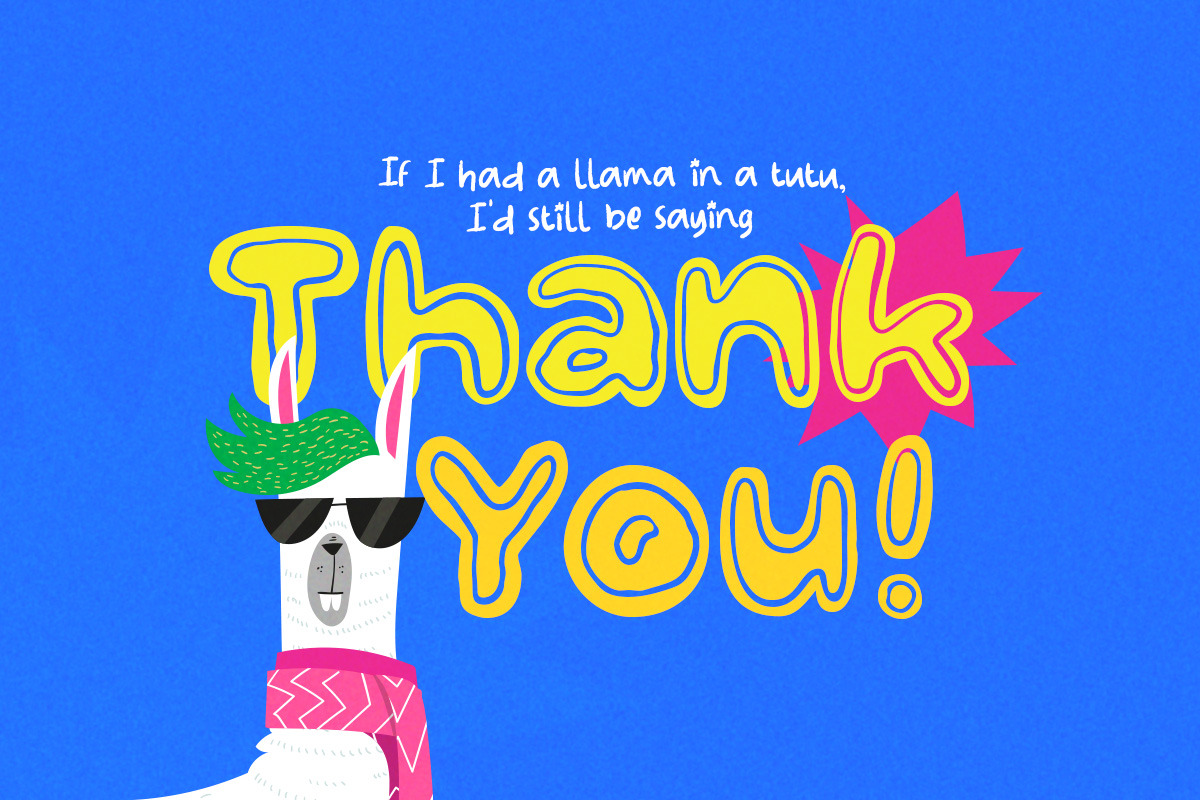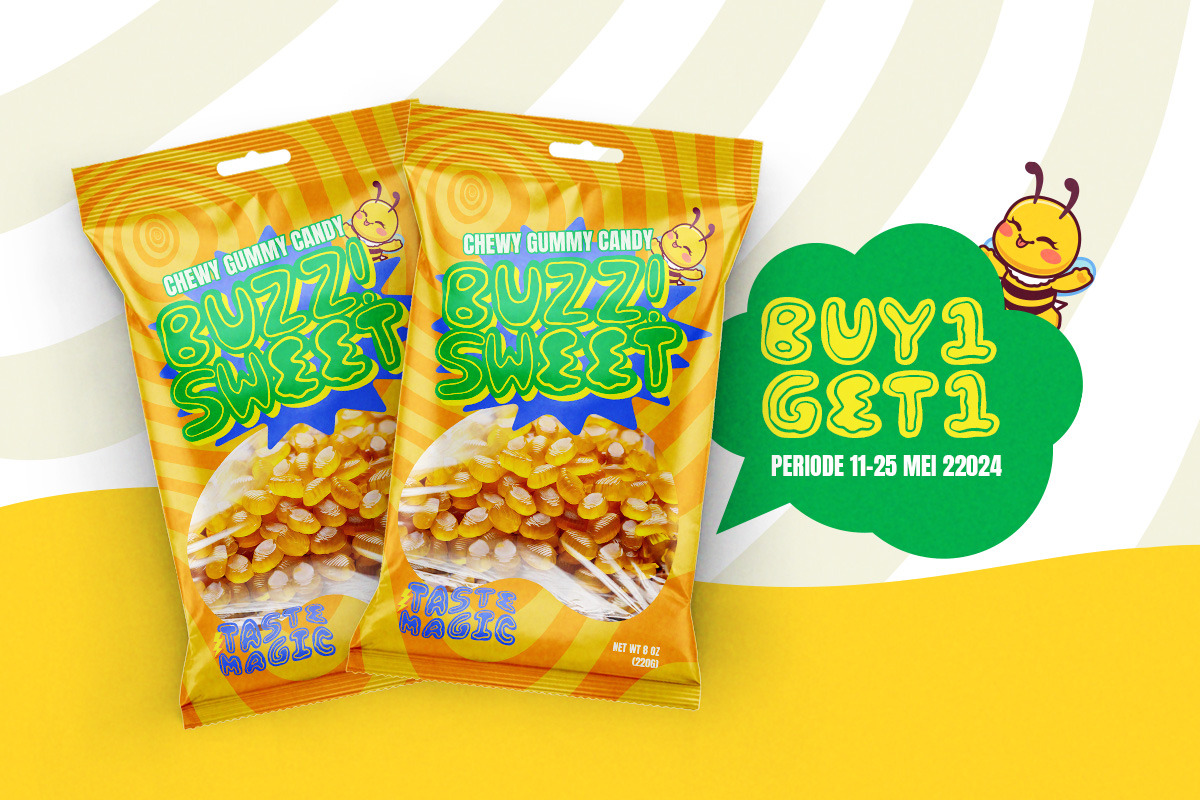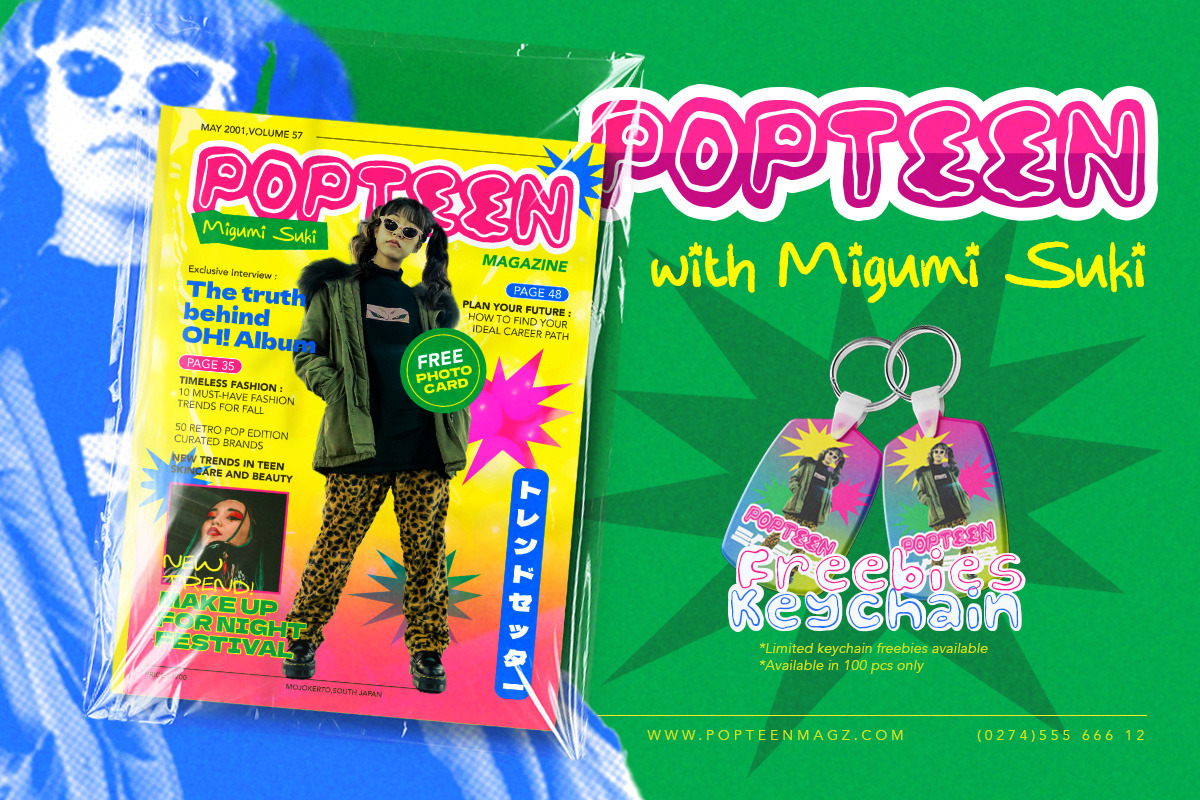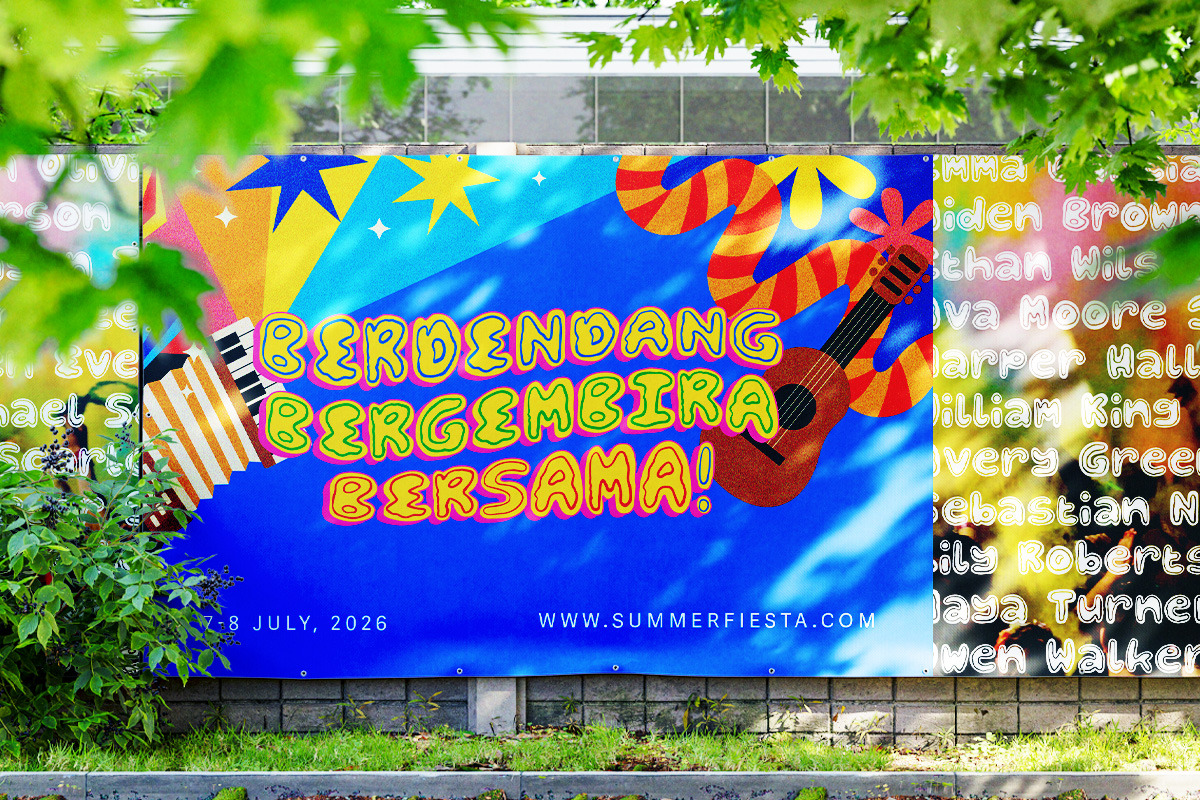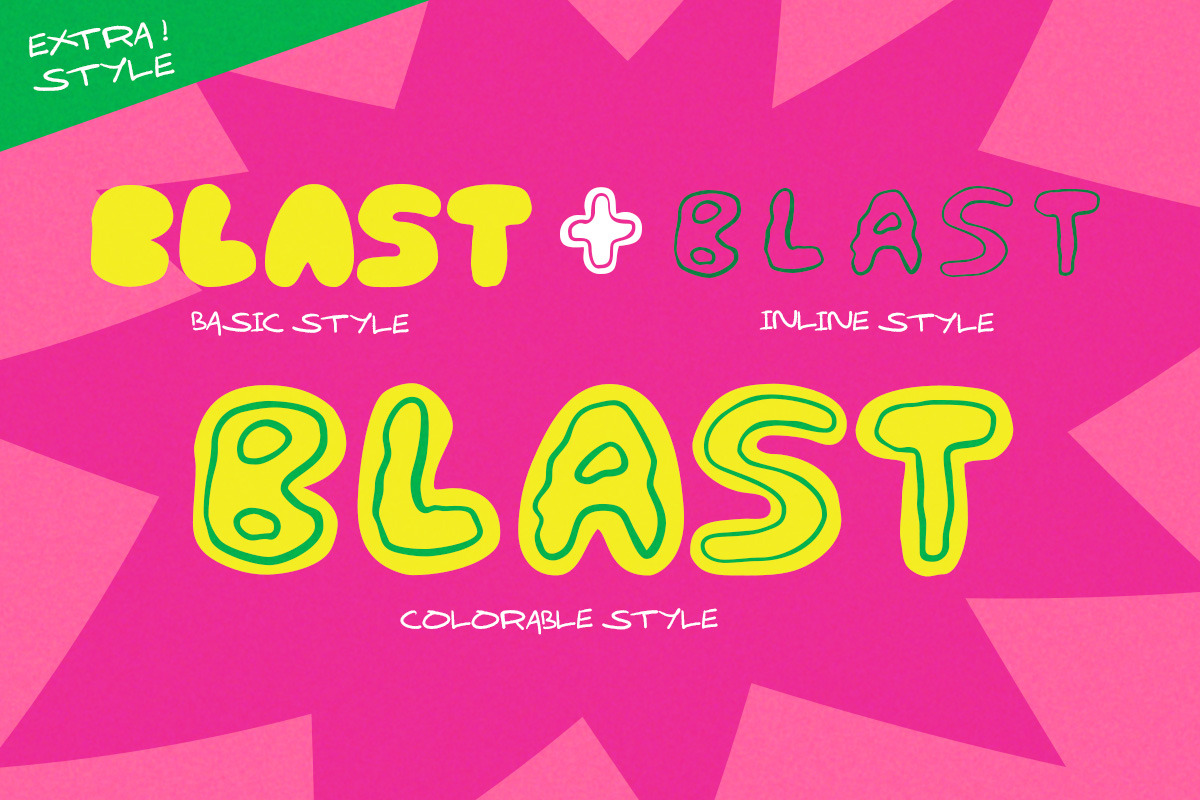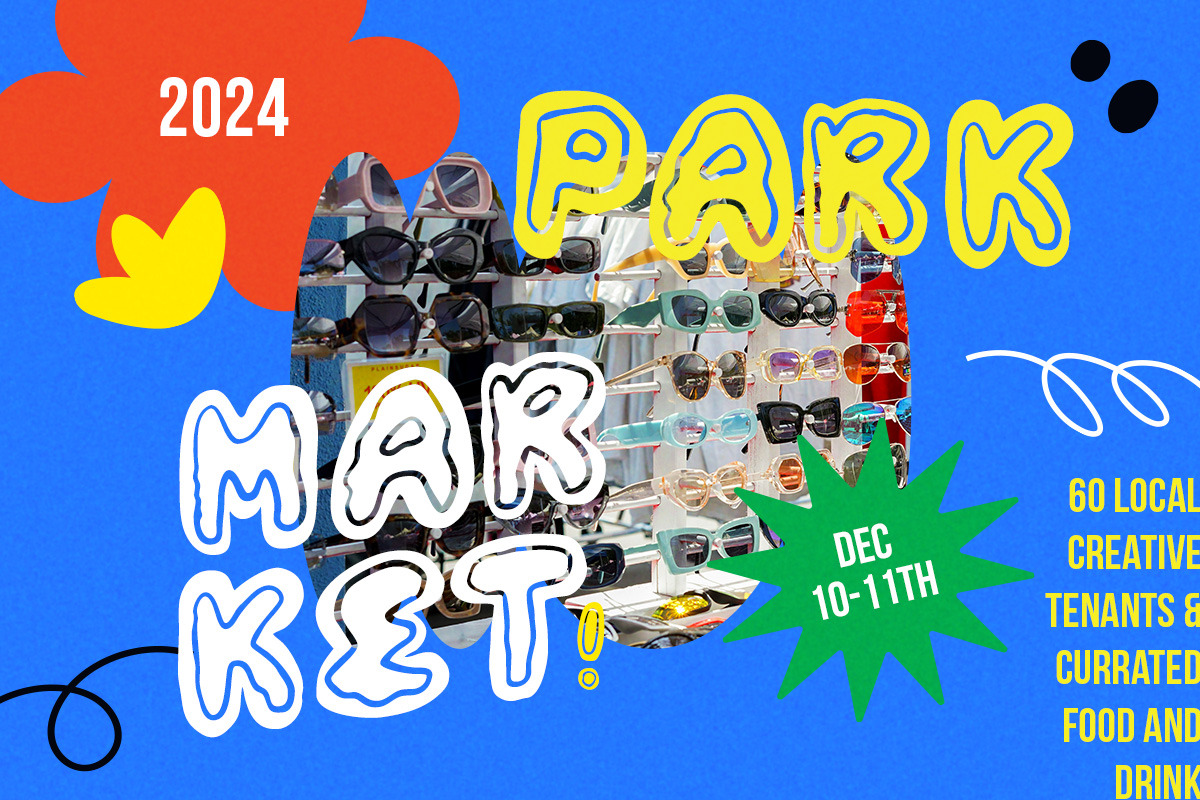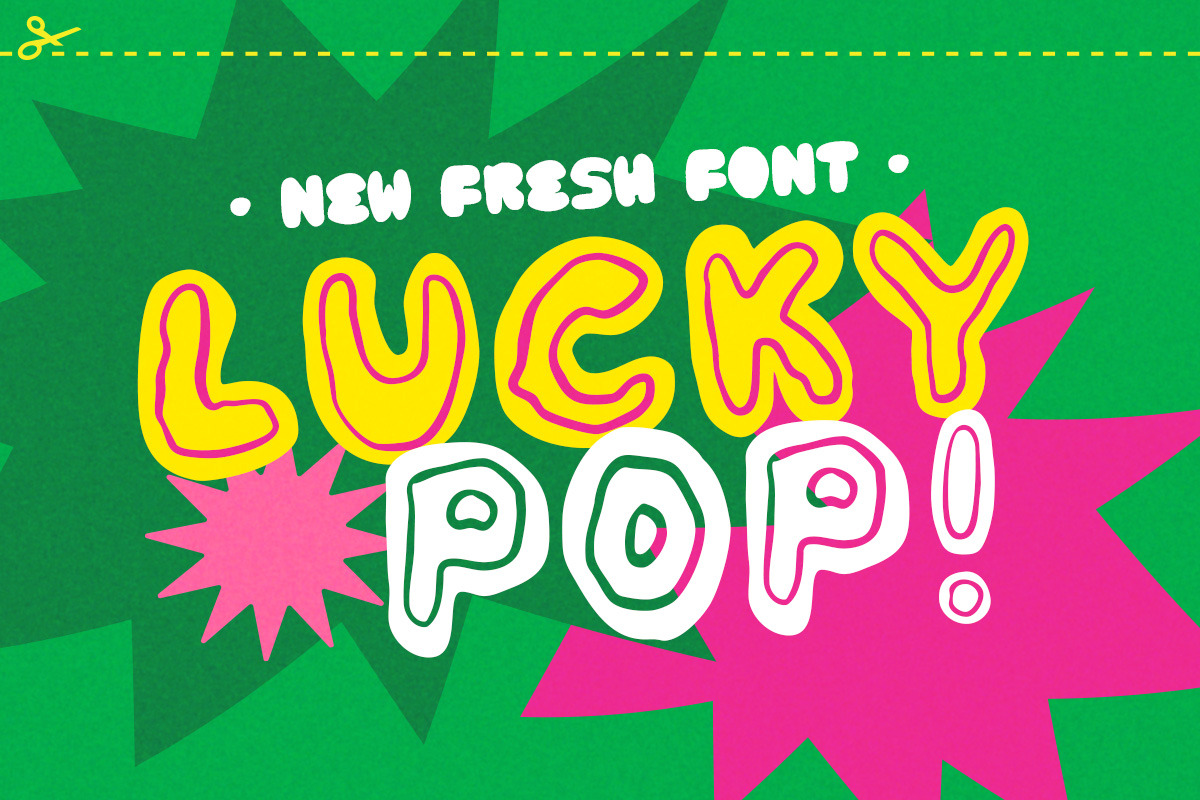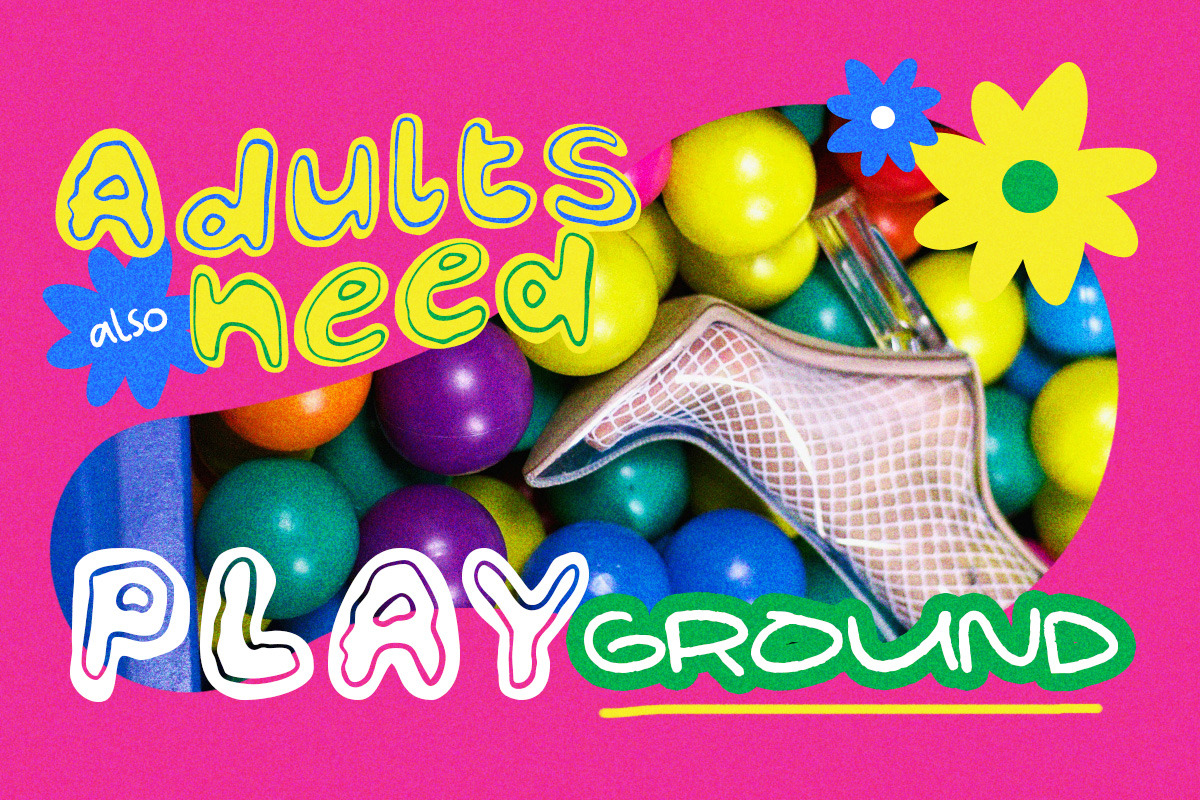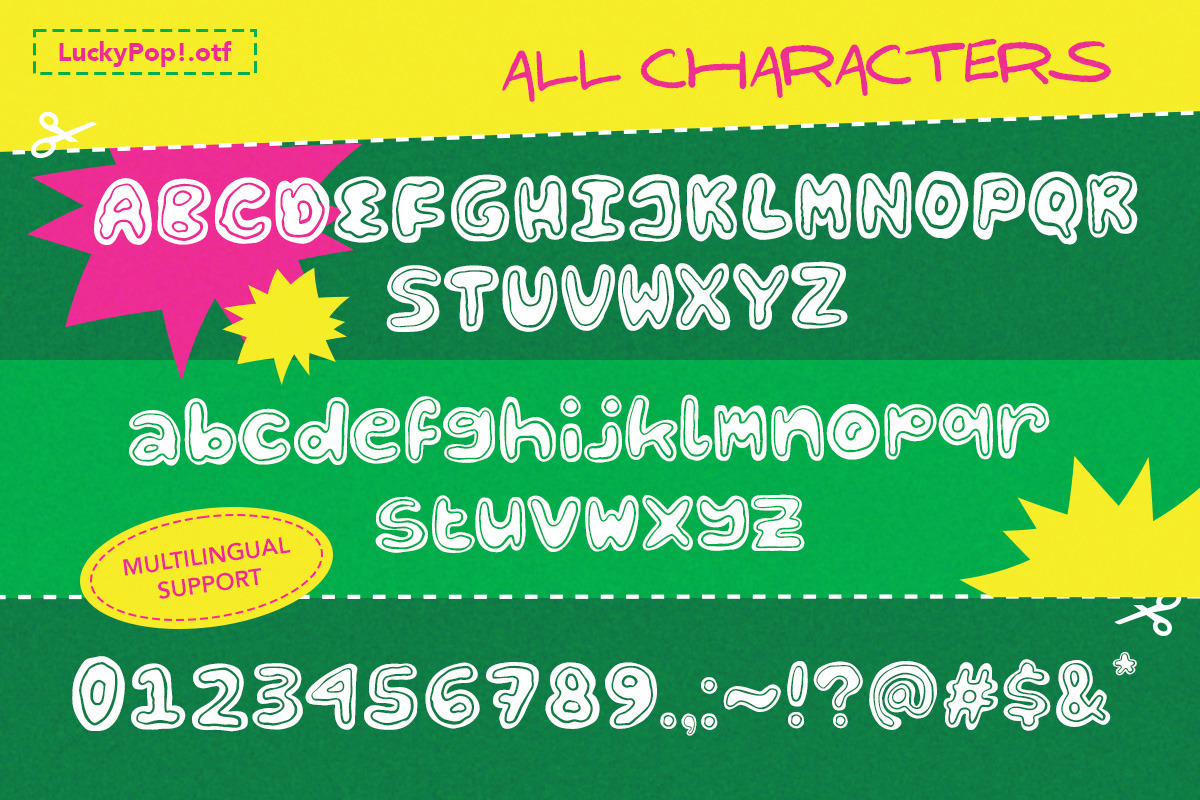
Lucky Pop! Display Font
Get Lucky with Lucky Pop!
With its fun and quirky design, this font adds a splash of spirit and cheerfulness to your projects. It features separate versions, allowing you to get creative with colors on the inline style. Exciting, right?
Let your creativity shine with Lucky Pop!